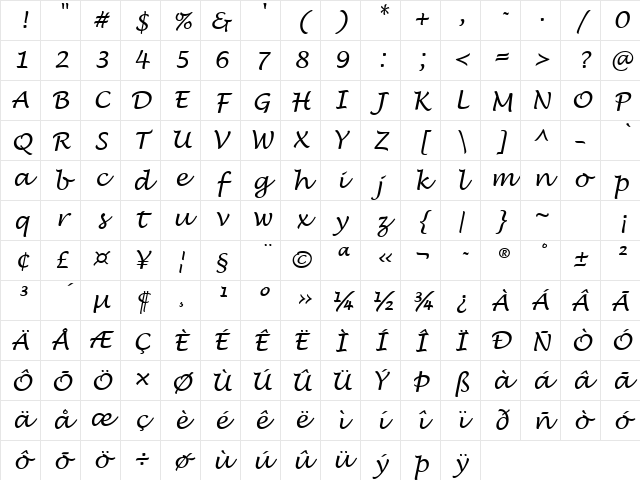
Lucida Handwriting Italic
Complete Lucida Handwriting Italic glyph index. Displaying only characters natively supported by Lucida Handwriting Italic font.
Design Context for Lucida Handwriting
Lucida Handwriting flows with the natural rhythm of handwritten lettering, making it ideal for designs that call for warmth and personal expression.
Font Pairing: Combine Lucida Handwriting with a simple geometric sans for maximum contrast - the tension between flowing curves and clean structure is a classic typographic pairing.
Pro Tip: Use Lucida Handwriting for short runs of text - names, titles, or taglines. Extended body copy in script faces tires the eye quickly.